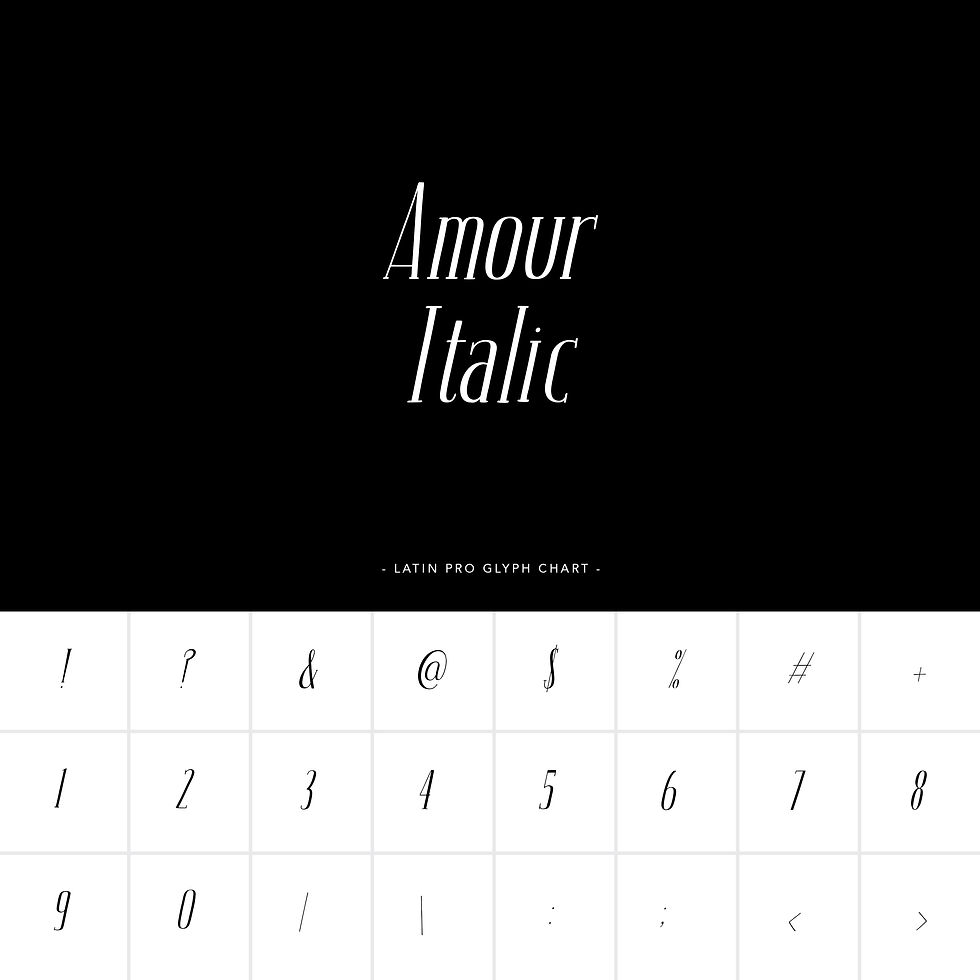
AMOUR BASIC ITALIC FONT is a romantic handwritten retro inspired font with Latin Pro Characters.
Use Amour font for stationery, valentine’s day, magazines, weddings, invitations, websites and anytime you would like to express your love.
Amour Basic Italic Font